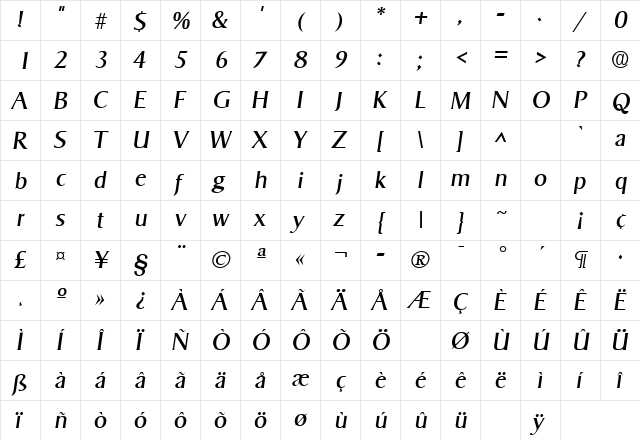
Sigvar Italic
Design Context for Sigvar Typeface
Sigvar is a composed and adaptable typeface that performs quietly and consistently across a wide range of design contexts. The dynamic lean of this cut emphasises speed and emphasis in any layout.
Pro Tip: Try Sigvar for annotation and caption copy alongside an upright companion — the contrast in angle creates a dynamic but ordered typographic system.